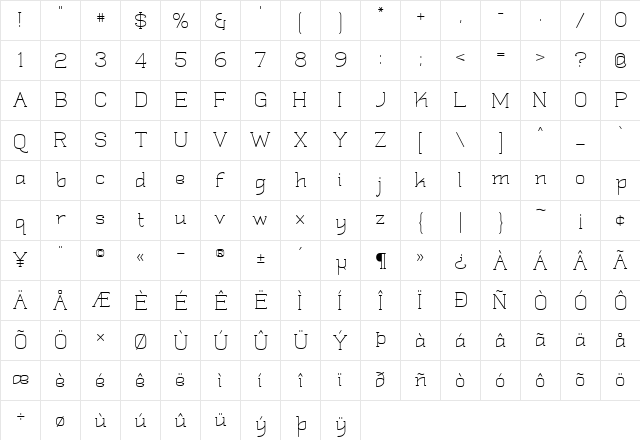
Quadlateral Regular
| Foundry | Graham Meade |
Design Context for Quadlateral Typeface
Quadlateral is a composed and adaptable typeface that performs quietly and consistently across a wide range of design contexts.